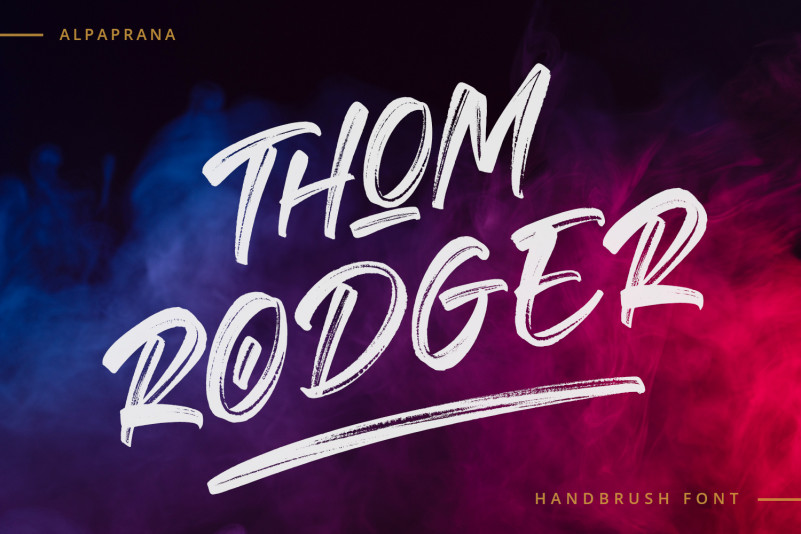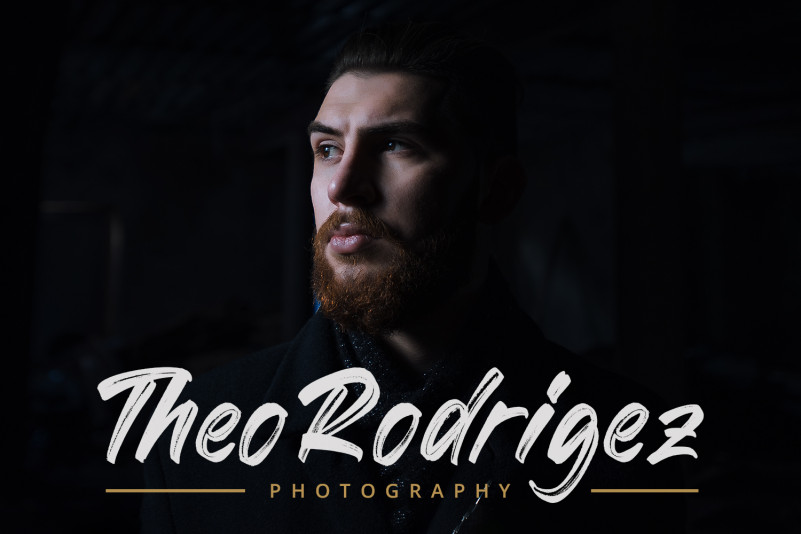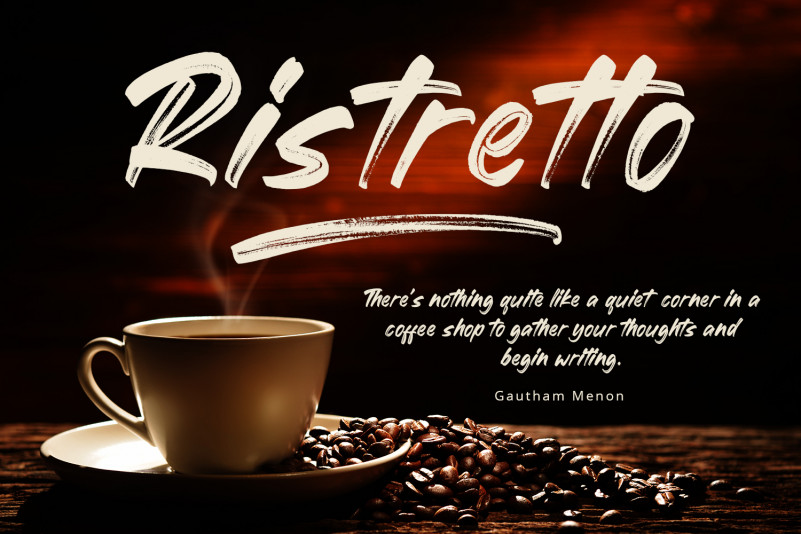
Thom Rodger Handbrush Font
Thom Rodger is a luxury handbrush typeface with authentic and casual feels. It will be perfectly used for Branding, Logo Design, Lettering, Logotype, Clothing, Poster, magazine, packaging, posters, shopping bags, t-shirts, book covers, photography, special events and other design project.